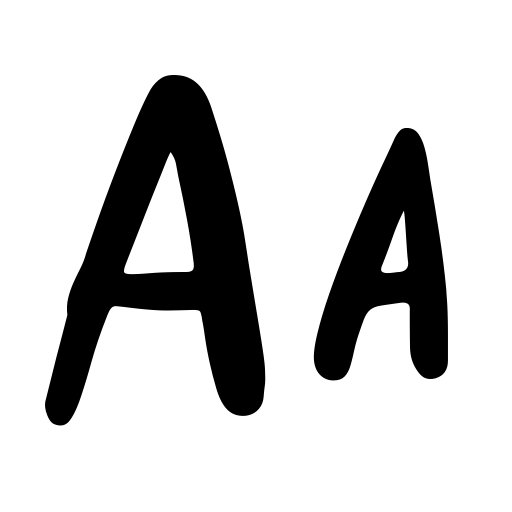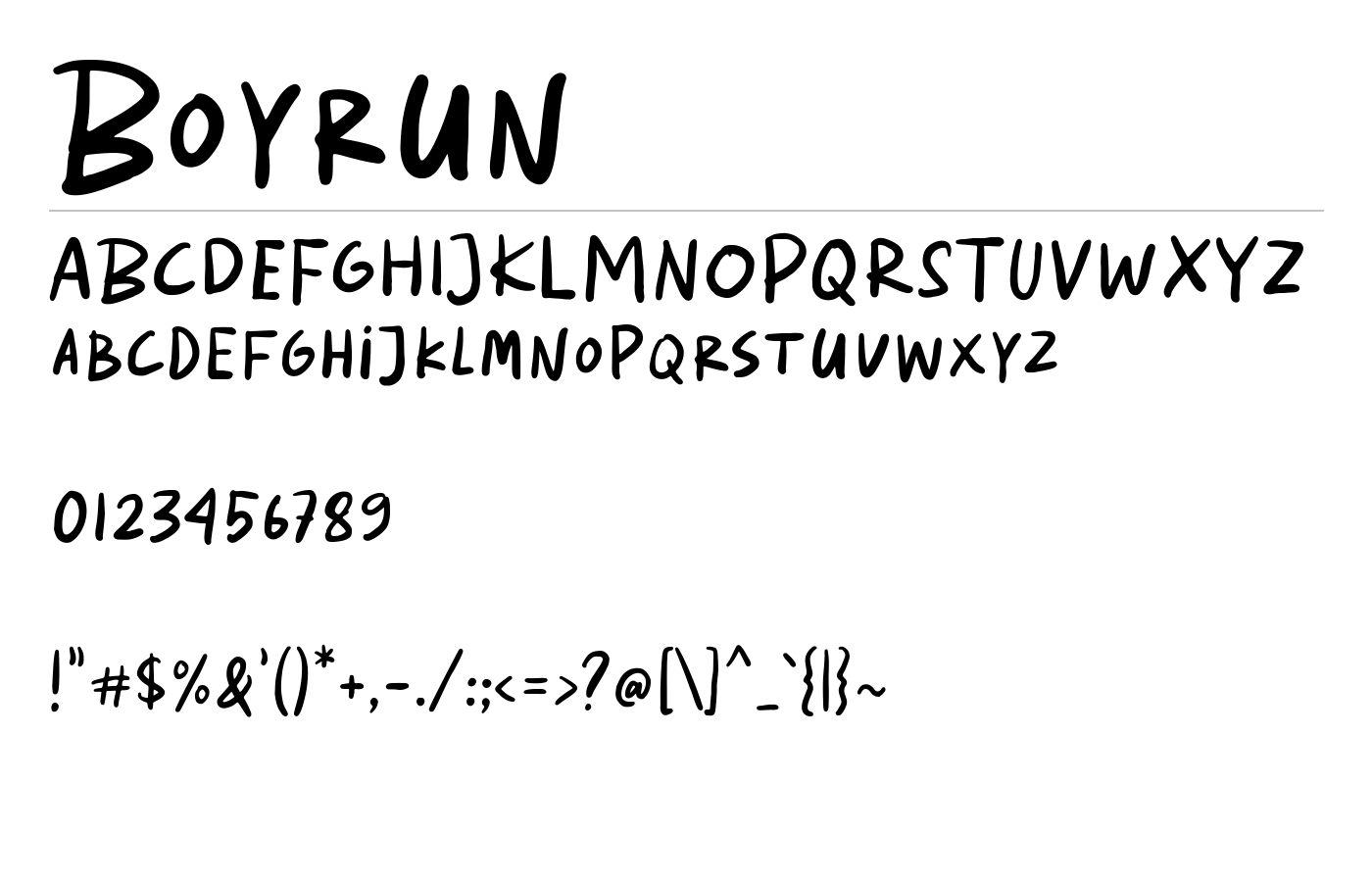
Boyrun is a playful, hand-drawn sans serif font with a casual and friendly vibe, featuring uneven strokes and irregular shapes that mimic natural handwriting. Its medium weight and slightly condensed letterforms make it ideal for adding a personal touch to informal designs like children's books, posters, and creative branding. This font works best where a warm, approachable, and lively atmosphere is desired, making text feel fun and engaging.
Boyrun Font
About Boyrun Font
| Font family | Boyrun Font |
| Designer | Wahyu Andi Prasetiyo |